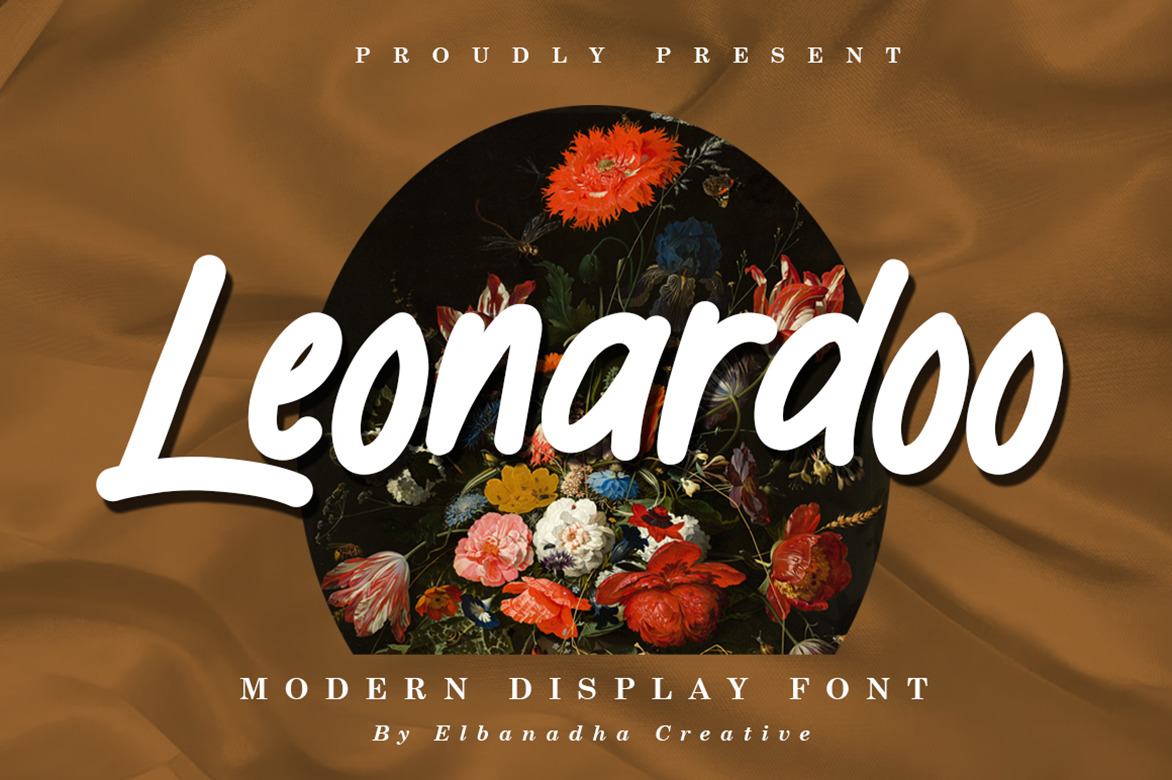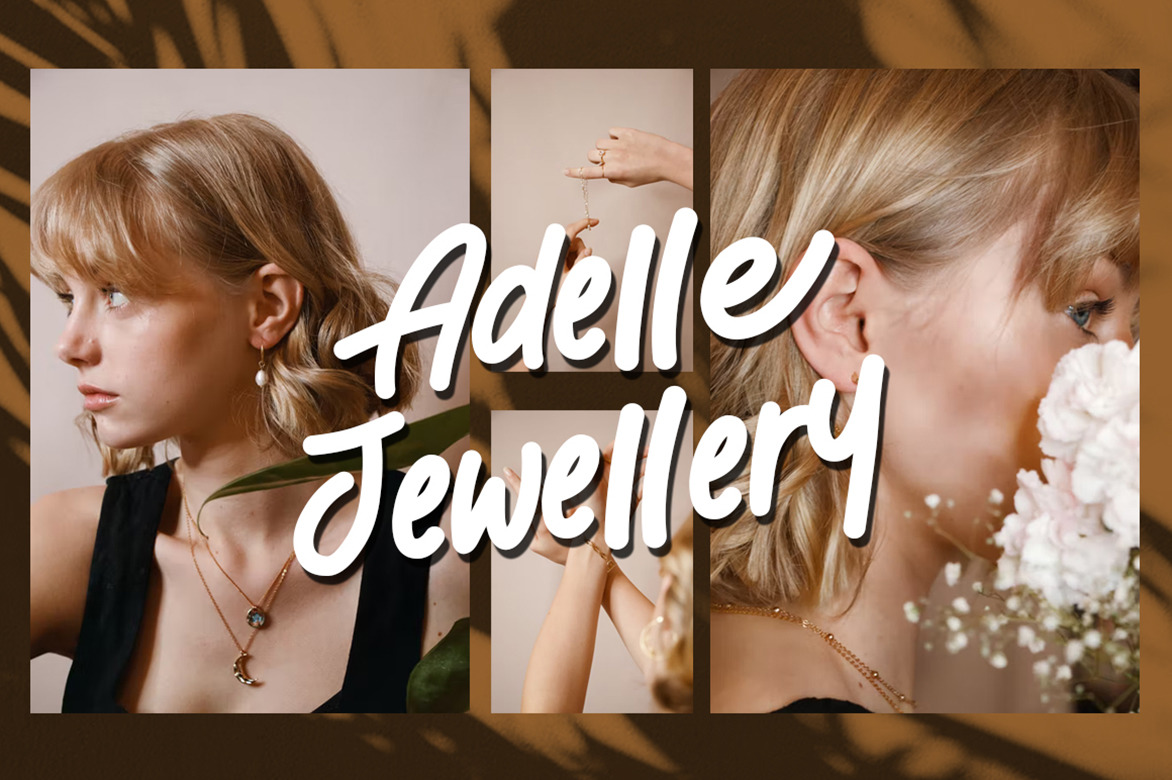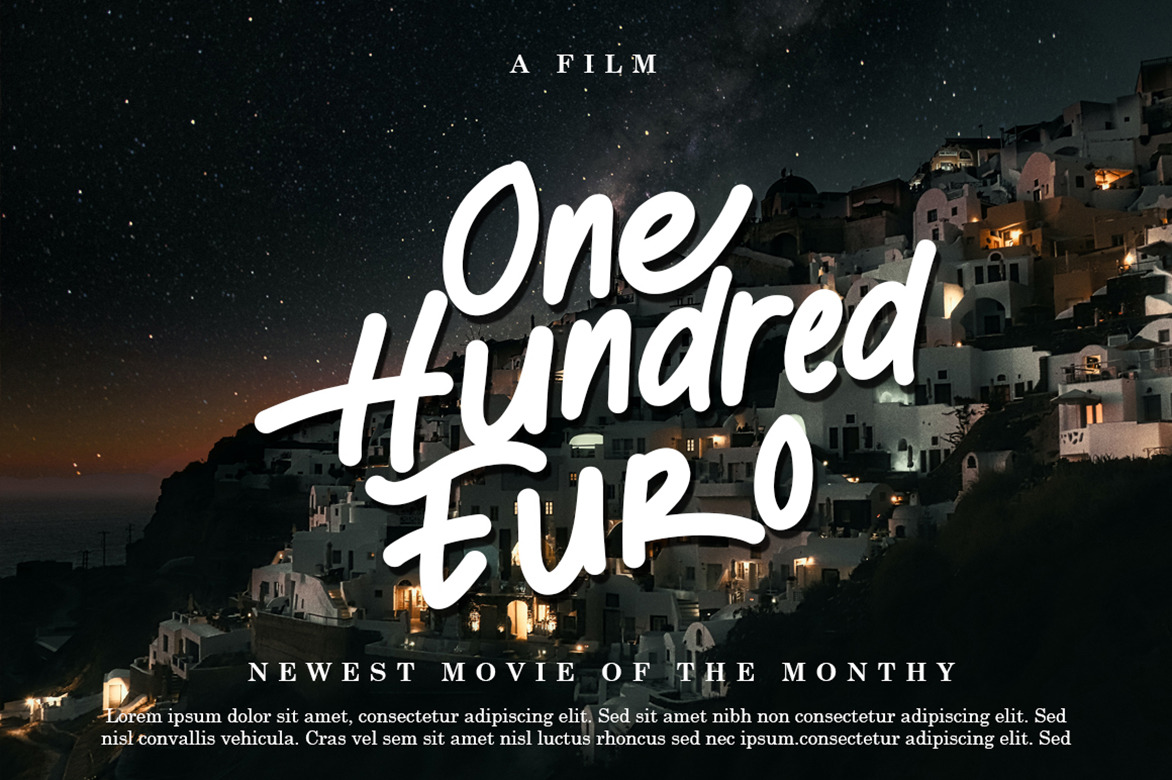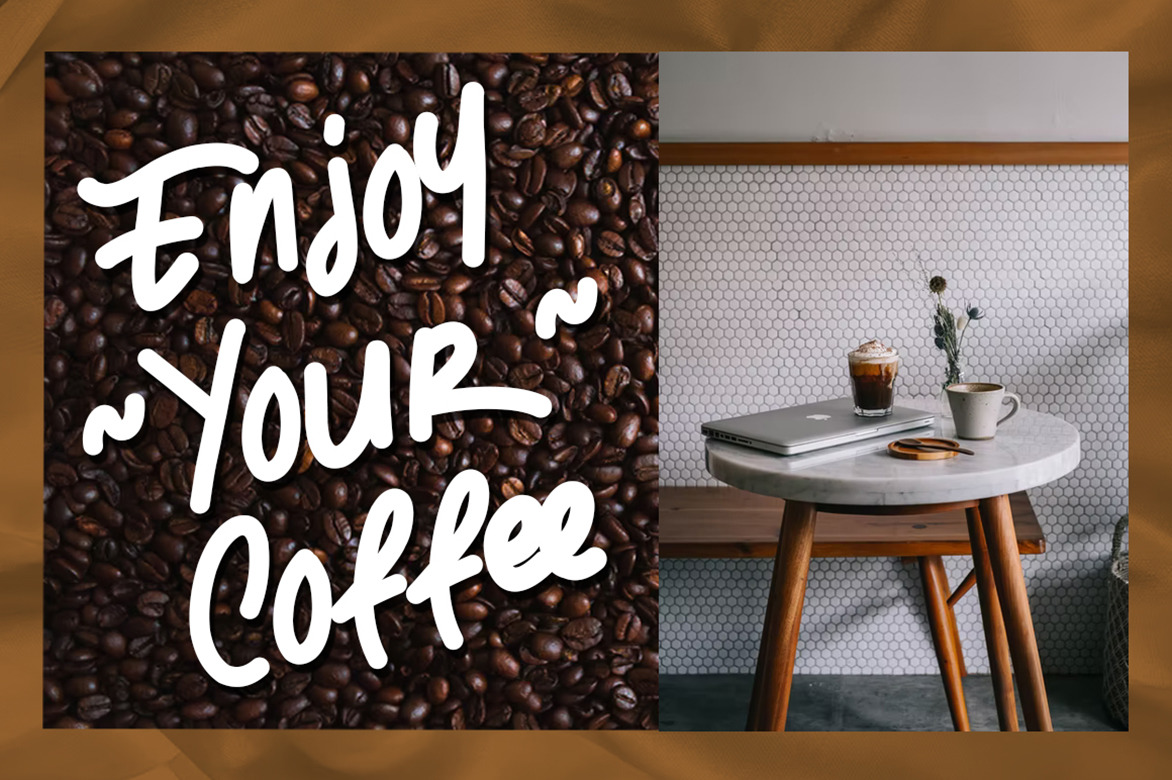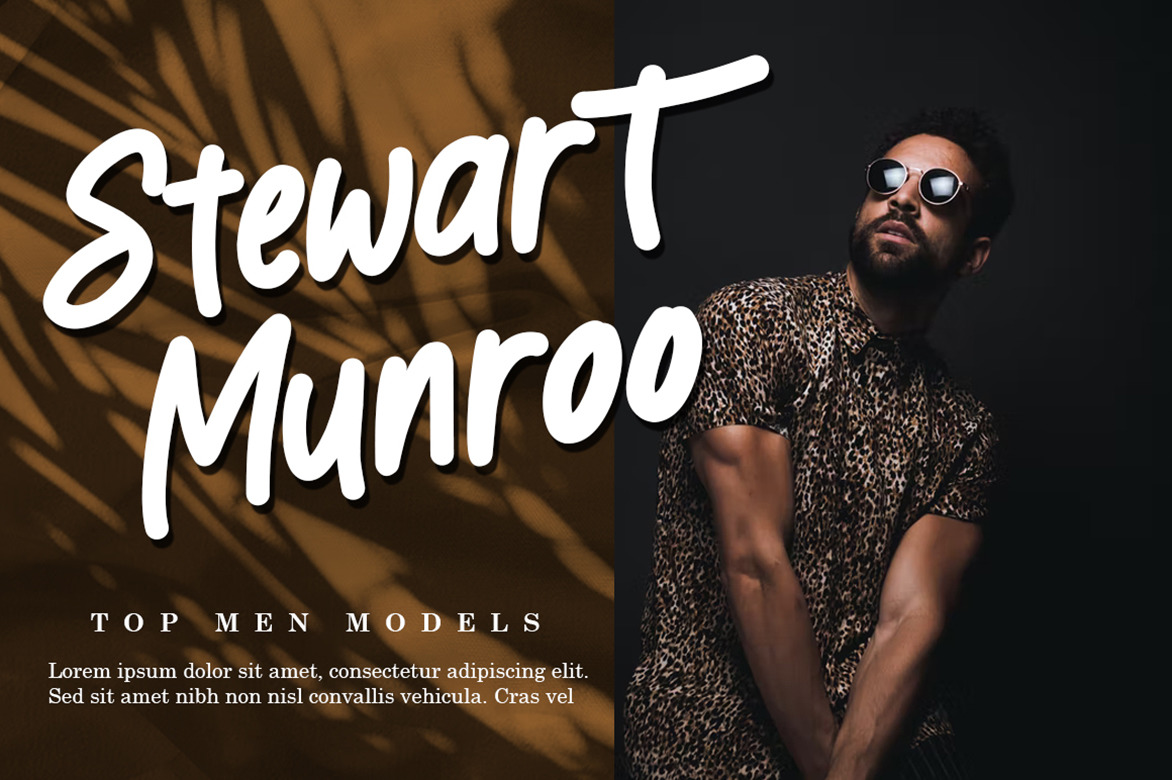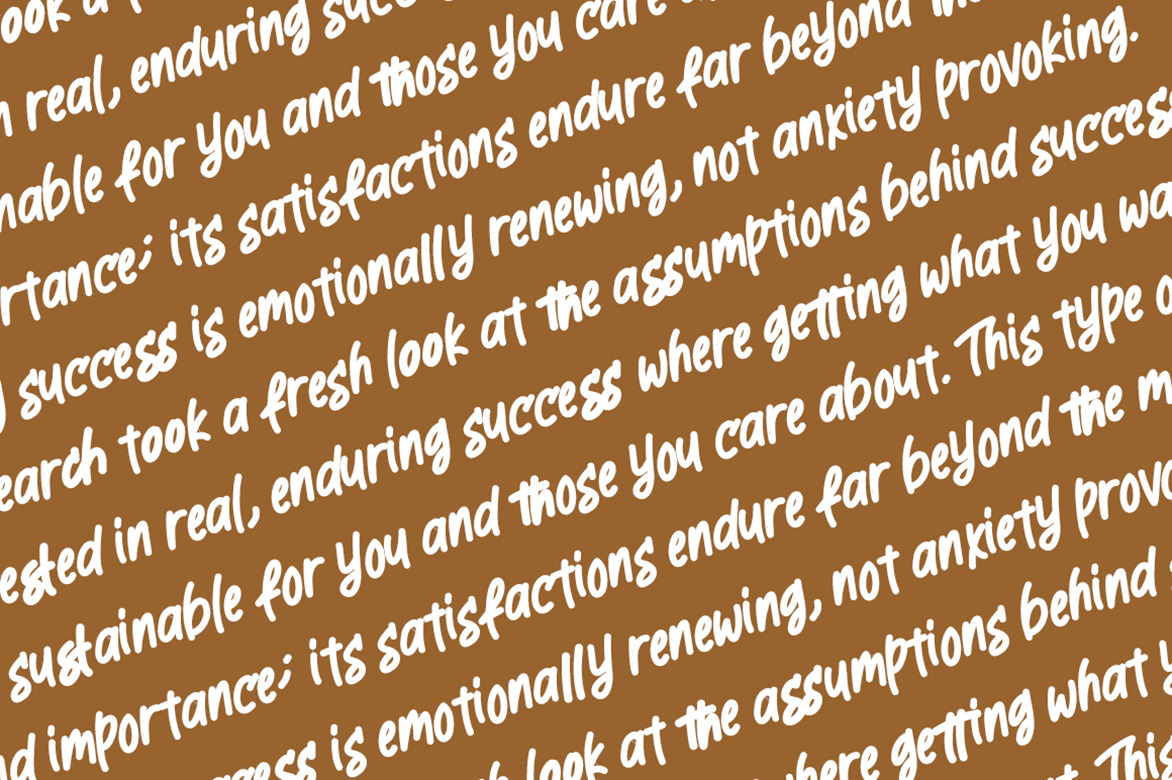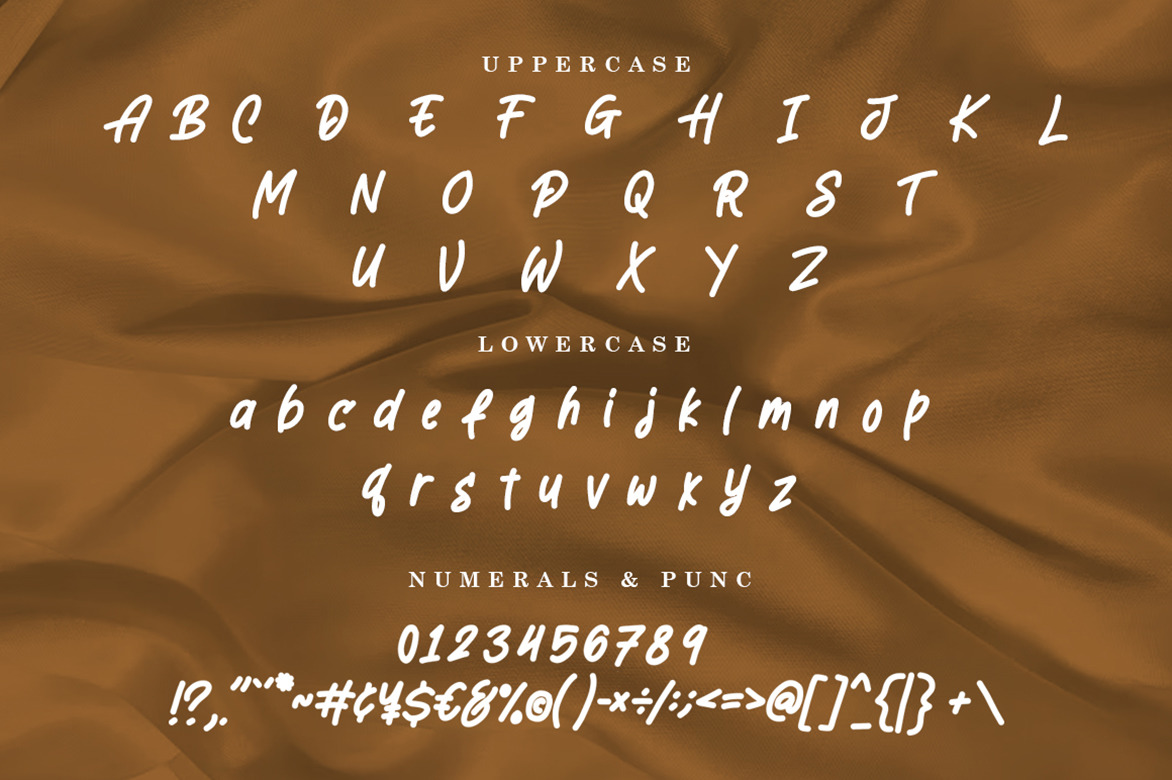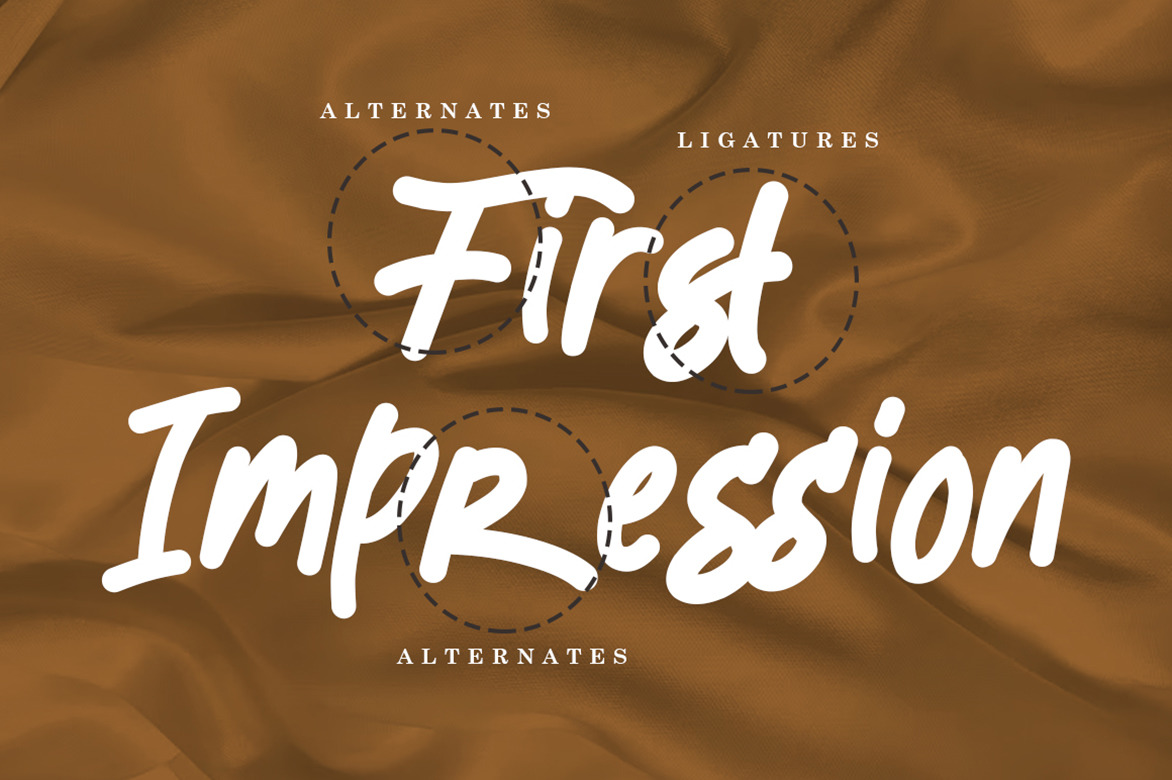
LEONARDOO | MODERN DISPLAY FONT
LEONARDOO – MODERN DISPLAY FONT, from Elbanadha Creative, suitable for any projects such as: logos, branding projects, homeware designs, product packaging, mugs, quotes, posters, shopping bags, t-shirts, book covers, name card, invitation cards, greeting cards, label, photography, watermark, special events, and all your other lovely projects that need a beautiful taste.
Standard glyphs
Alternate and Ligature